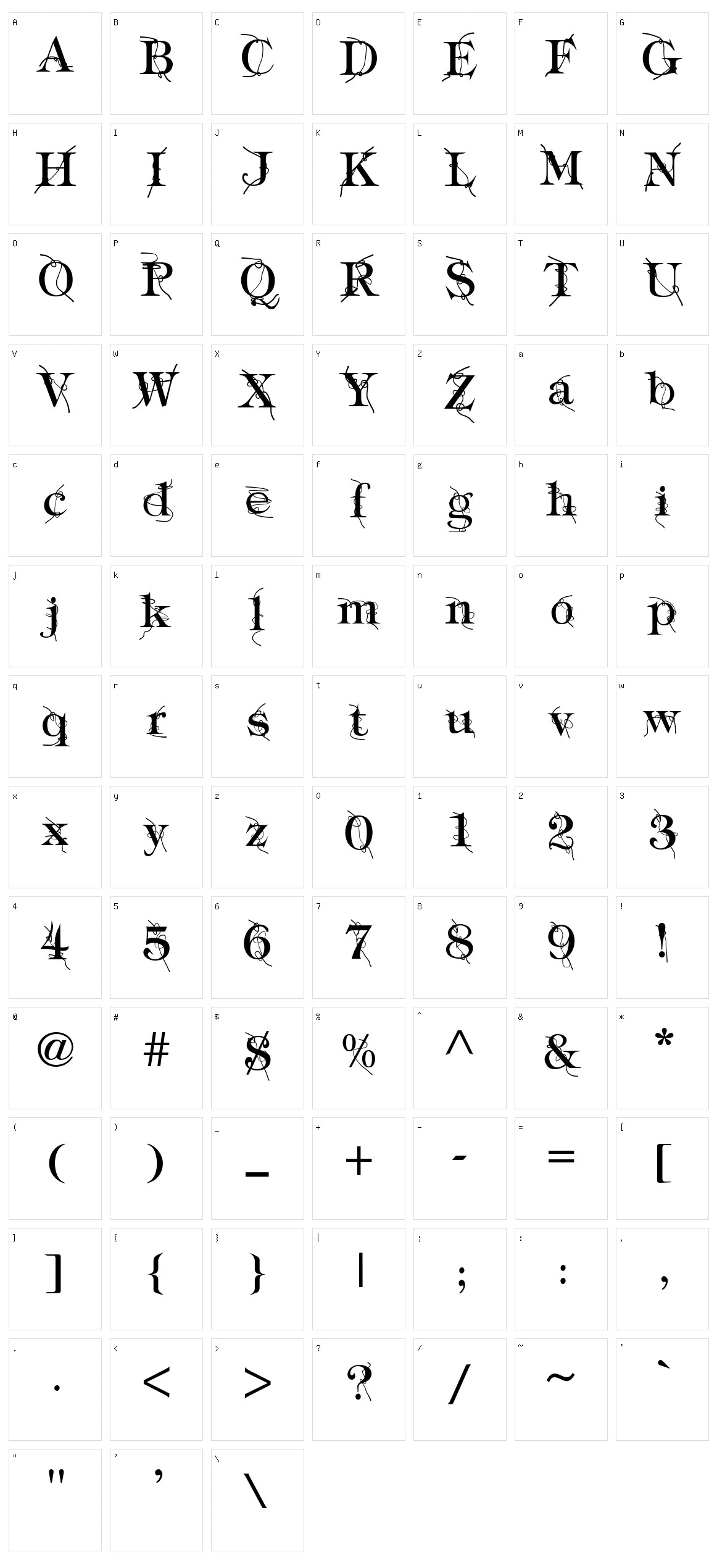
The free font Typography Ties is carefully designed by Typeface Florence, showcasing a thoughtful balance of creativity and usability and falls under the Decorative font style. When you download the ZIP file, it contains only 504.12 KB of font files, making it lightweight and quick to download. Please review the license details below to understand permitted usage and distribution rights. If license information is not available, we recommend using this font for personal projects only or contacting the author directly for commercial usage permissions.